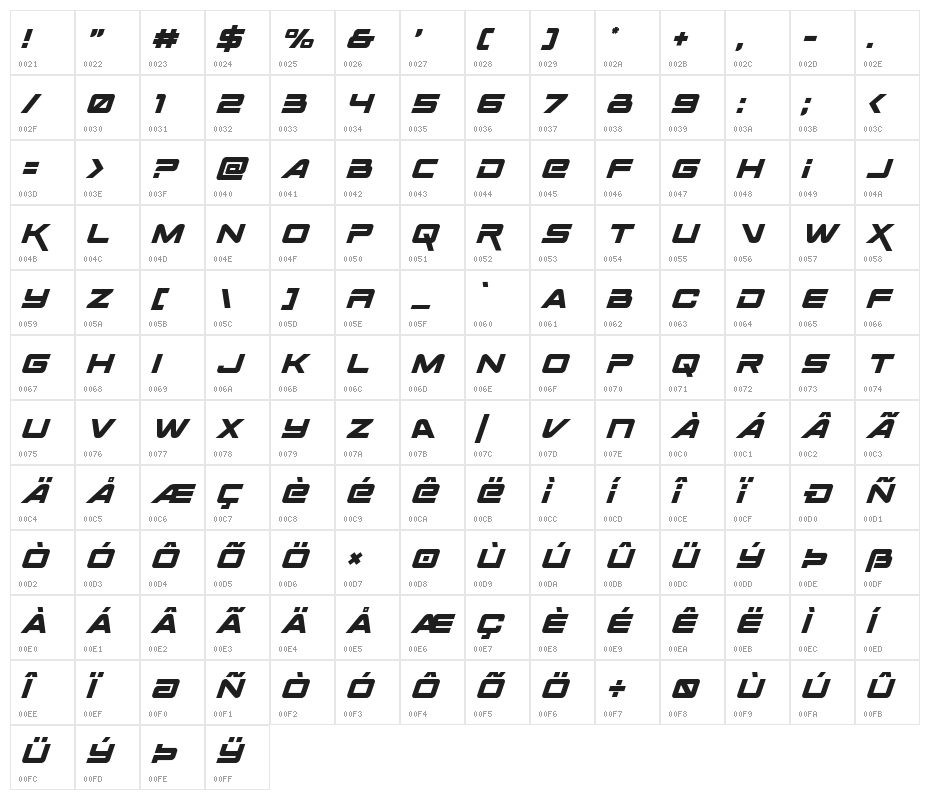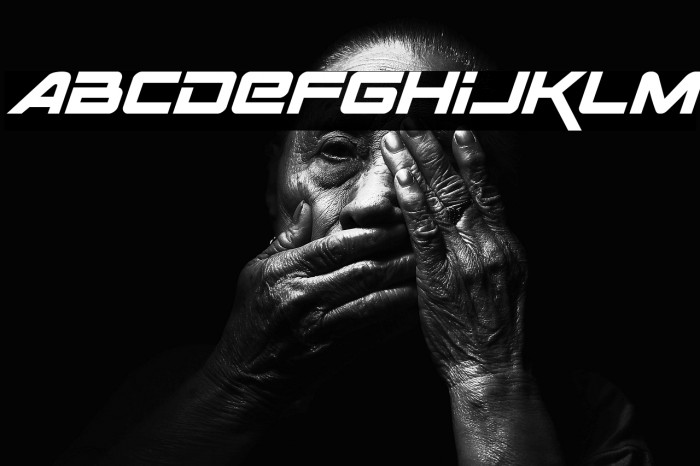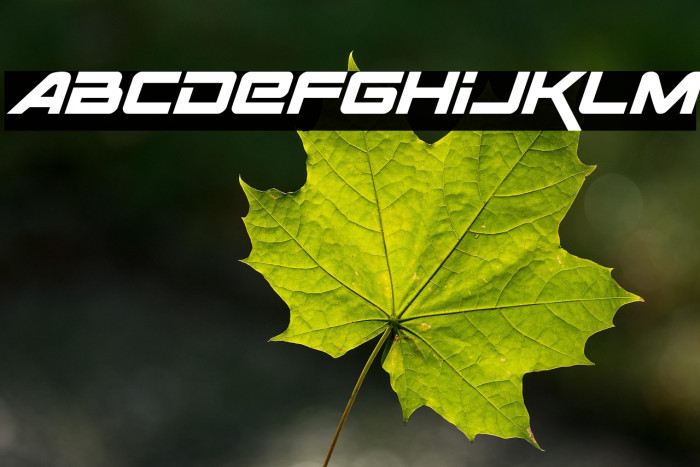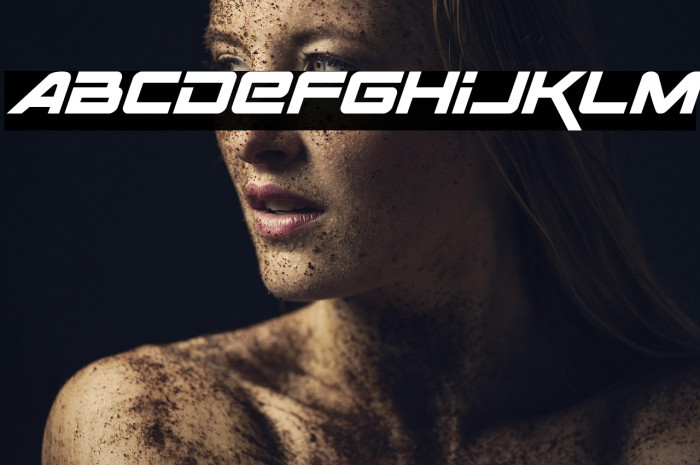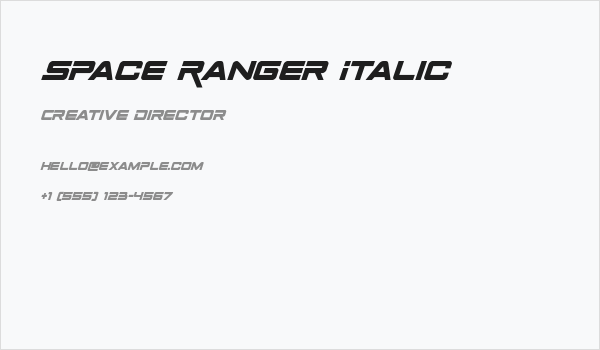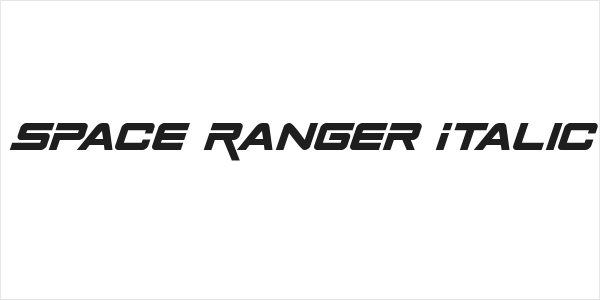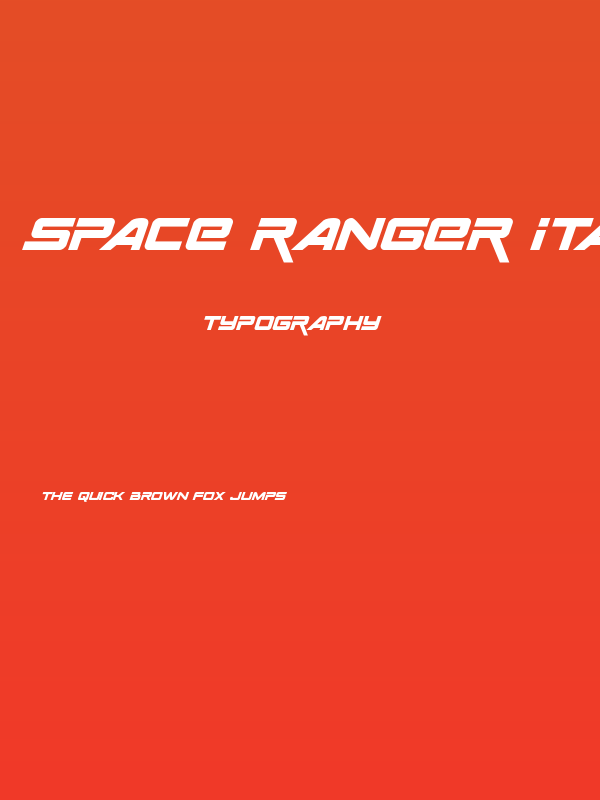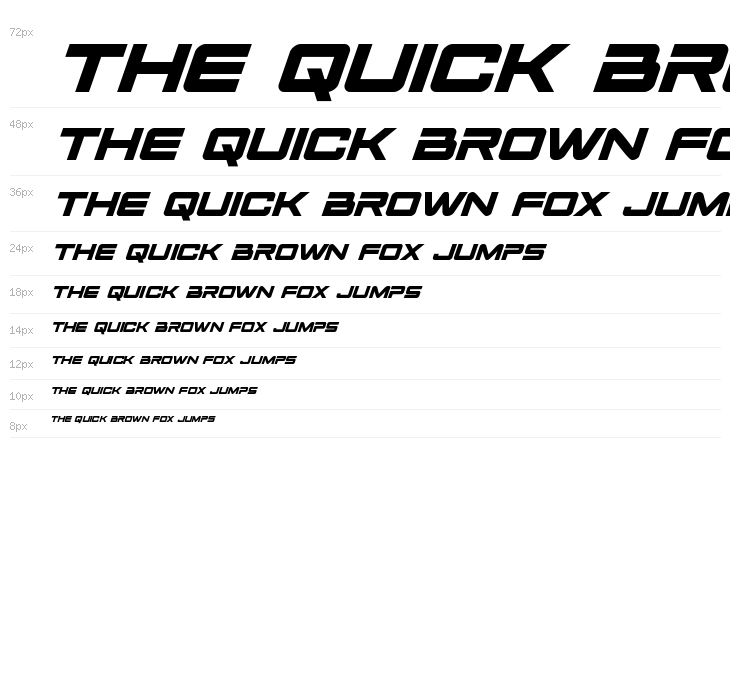
Space Ranger Italic Font
Space Ranger Italic Description
This font features a futuristic and dynamic design, characterized by its italicized and angular letterforms. The strokes are bold and consistent, giving it a strong presence. The characters are slightly condensed, enhancing the sleek and modern aesthetic. The uppercase and lowercase letters maintain a uniform style, with sharp edges and a sense of motion. The numerals and special characters follow the same design principles, ensuring a cohesive look across all elements. This font is ideal for projects that require a modern and energetic feel, such as technology branding, sports team logos, or sci-fi themed designs.
| Width | Condensed |
| Use Case | Logos, Headlines |
| Proposed Projects | Ideal for technology branding, sports logos, and sci-fi themed designs. |